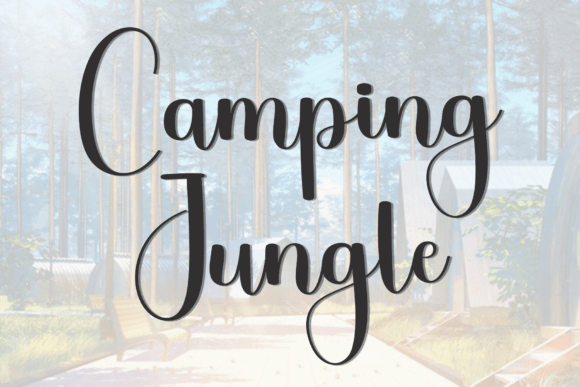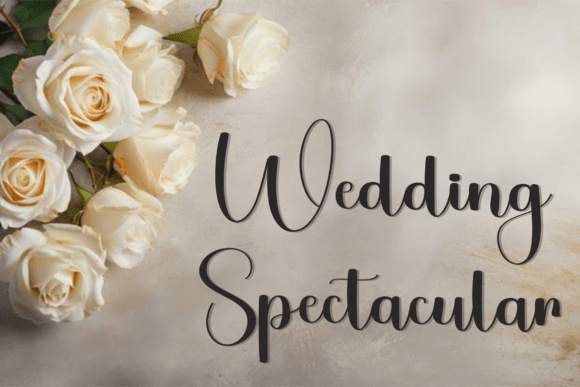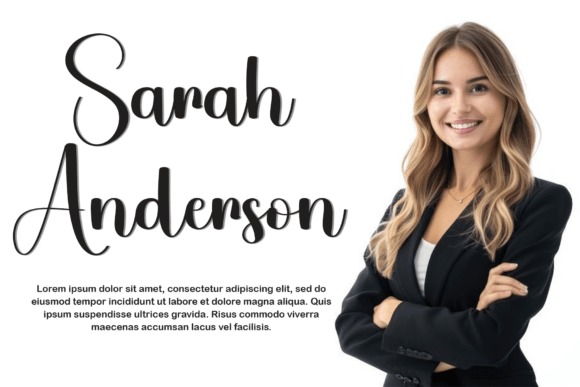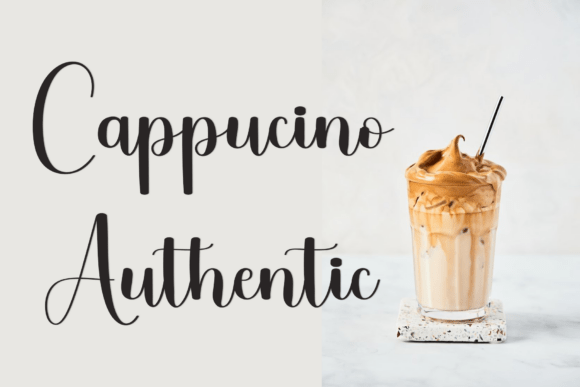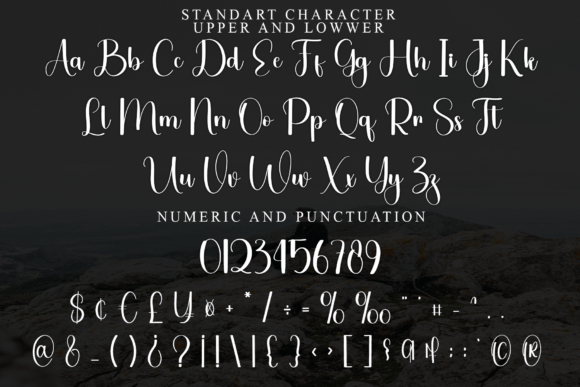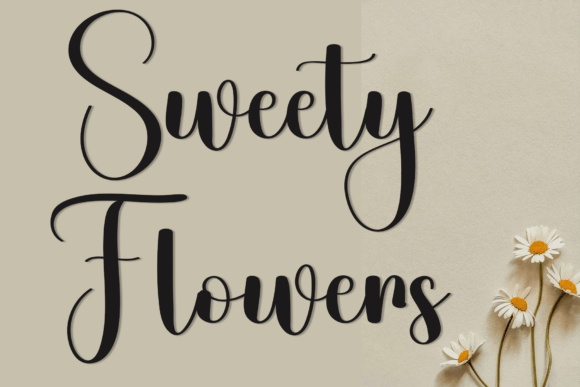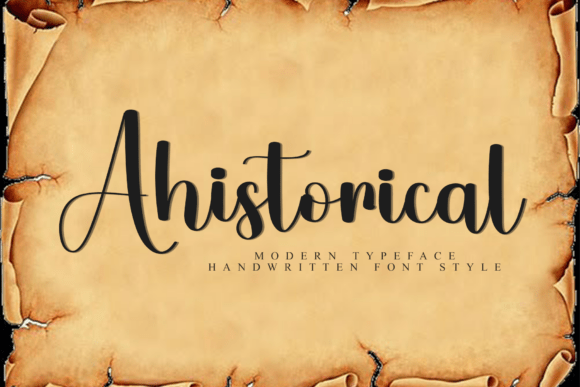
The Quest for the Perfect Handwritten Touch
Have you ever stared at a blank page, feeling the weight of a project’s creative burden? The blank space stares back, daring you to bring it to life. For designers, this moment is all too familiar. It’s the spark that ignites the search for the perfect font, the one that captures the essence of your vision.
Enter the Ahistorical Font, a masterful blend of elegance and spontaneity. This modern handwritten font is designed to evoke the charm of the past while staying true to its contemporary roots. Its smooth connections, clear legibility, and refined stroke weight make it a valuable addition to any designer’s toolkit.
With the Ahistorical Font, you can add a touch of sophistication and warmth to your designs, from wedding stationery to custom quotes. Its versatility and authenticity make it a go-to choice for designers seeking to add a heartfelt and modern handwritten touch to their work.
Ahistorical Font Key Features
- Unique Characteristics: This font features a unique blend of historical and modern elements, with intricate details and ornaments that evoke a sense of nostalgia and sophistication.
- Stylistic Sets: The font family offers multiple stylistic sets, allowing designers to experiment with different looks and feels, from elegant and refined to bold and ornate.
Review of Ahistorical Font
I’ve had the chance to play around with the Ahistorical Font, and I must say it’s a unique addition to any design project. ✨ Here are some things that work well:
- Unique aesthetic: Ahistorical Font has a distinctive look that can add a touch of personality to your designs.
- Highly customizable: The font is available in a range of weights, styles, and sizes, making it easy to tailor to your specific needs.
- Works well for display text: Ahistorical Font is particularly effective for headings and titles, where its bold lines and quirky character can really shine.
- Not ideal for body text: Due to its bold lines and irregular shapes, Ahistorical Font can be difficult to read at smaller sizes or in large blocks of text.
- Lack of legibility: Some characters in the font can be confusing or hard to distinguish from one another, which may lead to readability issues.
Overall, Ahistorical Font is a great choice for designers who want to add some personality to their projects. While it may not be suitable for every type of design, it’s a great option for headings, titles, and other display text. Just be mindful of its limitations, and use it judiciously to avoid any potential readability issues.
Tips for Getting the Most Out of Ahistorical Font
Experiment with different font sizes and styles to create a unique look.
Use the Ahistorical Font in combination with other design elements to create a cohesive visual identity.
Consider using the Ahistorical Font for headings or titles to add a touch of elegance and sophistication.
The Ahistorical Font is ideal for:
Creating invitations and event materials with a vintage or retro feel.
Designing book covers and literary materials with a classic aesthetic.
Developing branding and marketing materials with a unique and distinctive look.